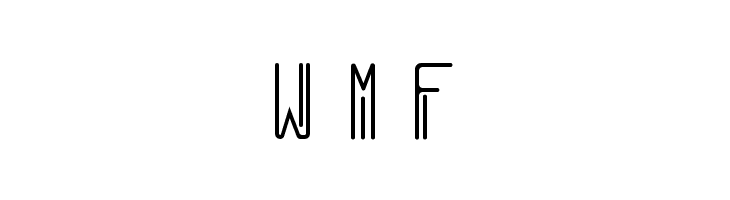
• Maiers Neue Nr.8 Reduced Light
A geometric, minimalist font with thin lines and angular shapes, ideal for modern designs.
A highly condensed sans-serif font with uniform strokes and minimal contrast.